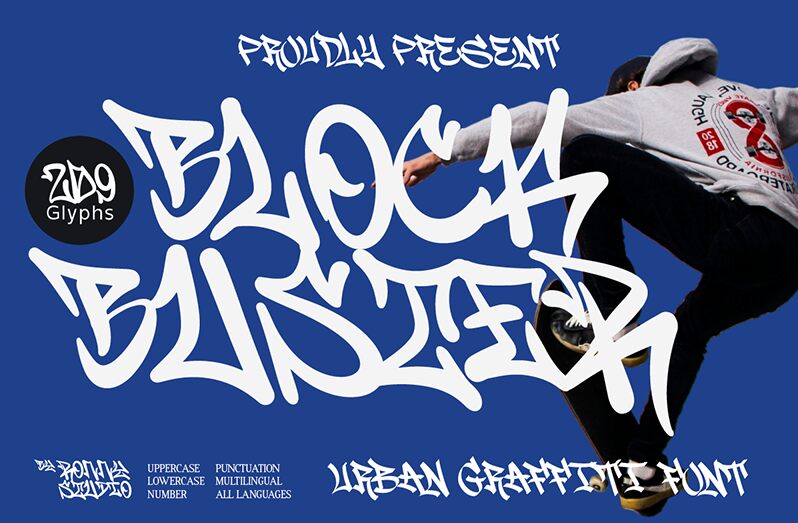
Block Buster DEMO
Block Buster font by Ronny Studio is a free graffiti display font. It solves the classic struggle: you want raw, street-level attitude without losing readability. Thick, inky strokes snap into tight angles, with quick whip-like tails that keep the word lockup compact and punchy. The rhythm feels hand-sprayed yet controlled, so headlines hit hard and still scan fast.
Using Block Buster, your streetwear logos, event flyers, hip-hop cover art, YouTube thumbnails, sneaker drop graphics, gaming splash screens, and sticker sheets get instant grit and motion. This free font shines at large sizes; back it with a quiet, condensed sans for body copy and let the tag do the shouting.